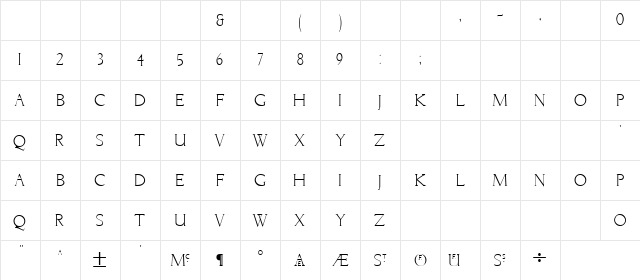
Lichtner Regular
Lichtner Family
Design Context for Lichtner
Lichtner is a composed and adaptable typeface that performs quietly and consistently across a wide range of design contexts.